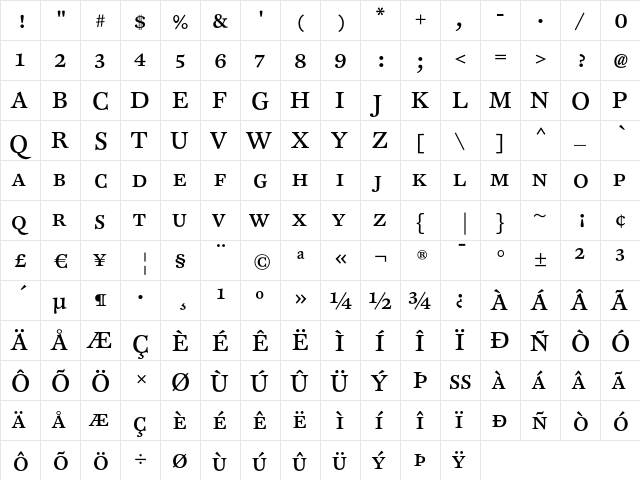
CliffordSix Caps
Design Context for CliffordSix Typeface
CliffordSix takes a measured approach to typography — its balanced proportions and neutral character make it a reliable workhorse for both digital and print work.
Pro Tip: Use CliffordSix in both headline and body roles to test its range before committing to a single application.